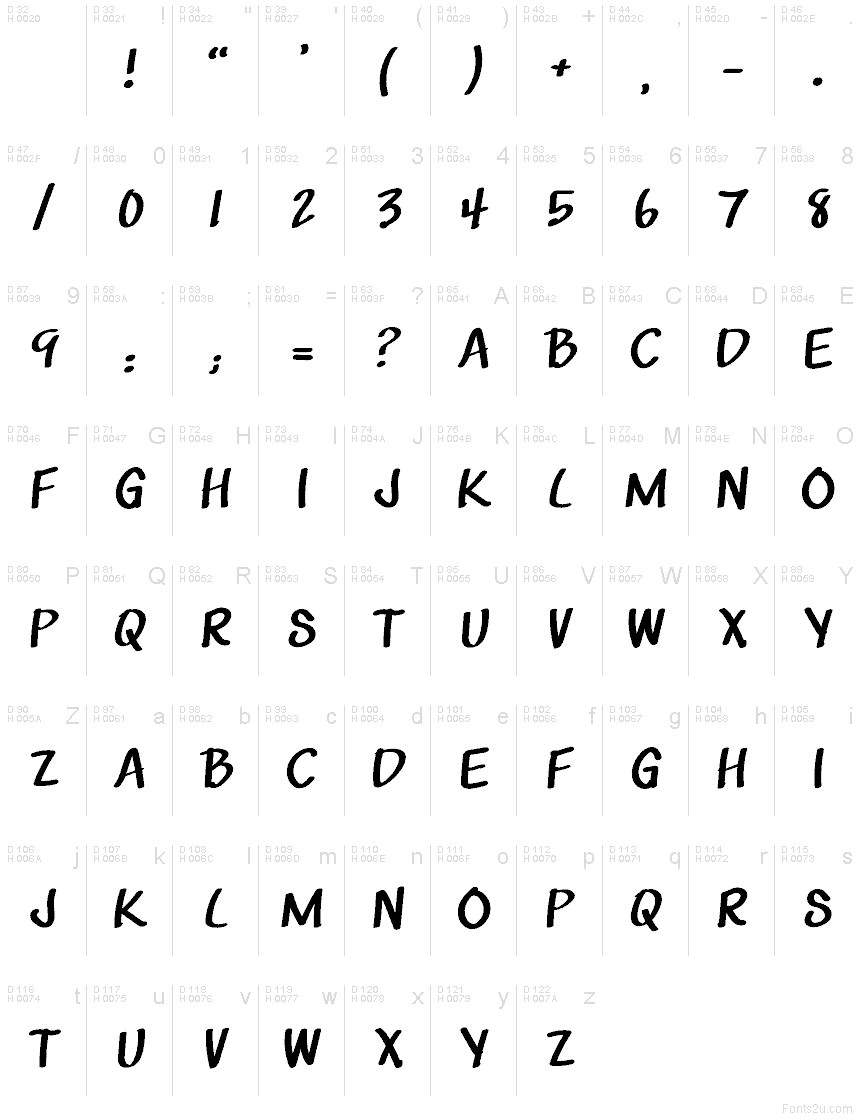
Handron Solid Marker
Handron Solid Marker font by Mark L is a free handwritten marker font that captures the look of fast, confident strokes from a thick felt-tip pen. Letters are tall, narrow, and tightly spaced, so you can squeeze punchy messages into small banners, labels, or thumbnails without losing impact. The inky, slightly rough edges keep it from feeling sterile, giving your layouts an urgent, human energy that still reads cleanly at a glance.
Using Handron Solid Marker, you can bring that scrawled-on-the-box vibe to posters, YouTube thumbnails, zines, streetwear graphics, stickers, and bold social media headers. This free font shines on short phrases, callouts, and hand-drawn style logos where personality matters more than polish. For balance, pair it with a simple sans serif for body text and let Handron Solid Marker handle the loud, attention-grabbing parts at larger sizes.